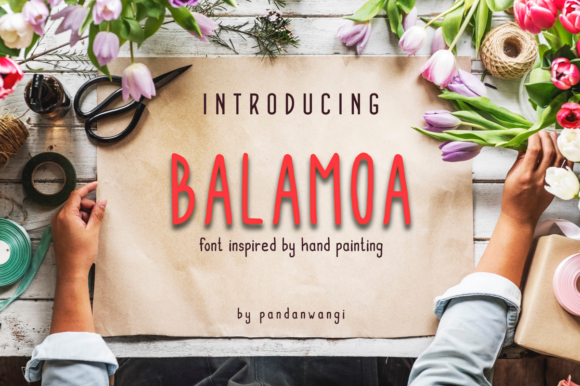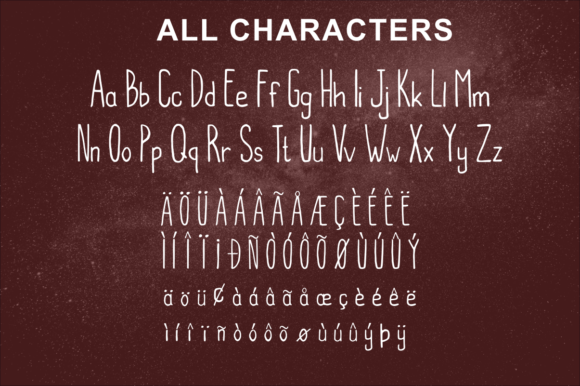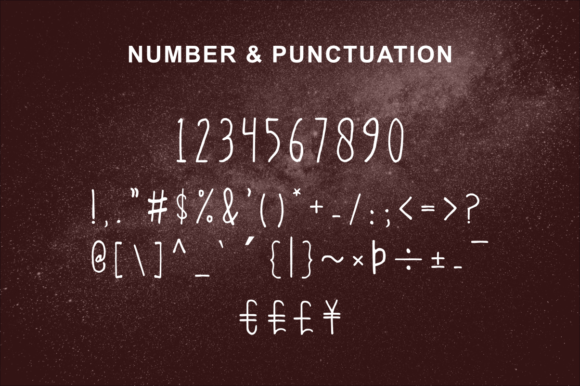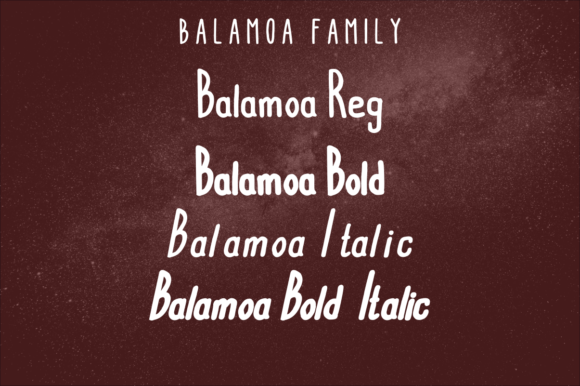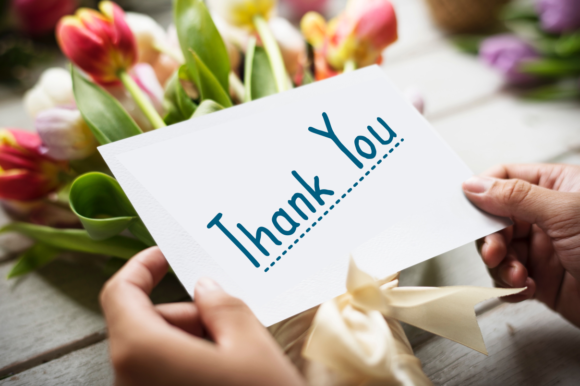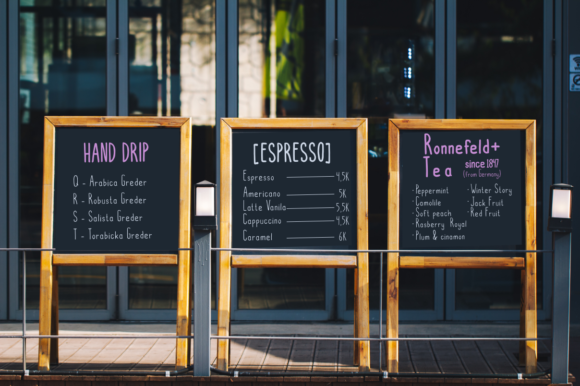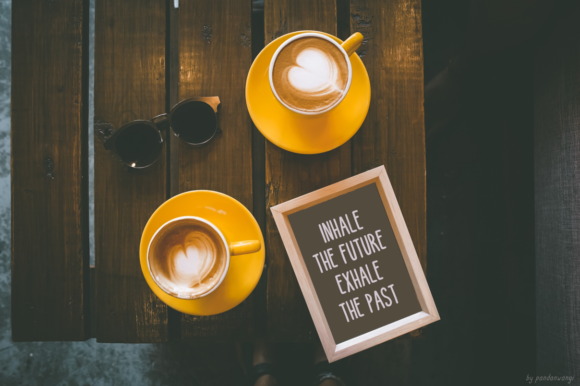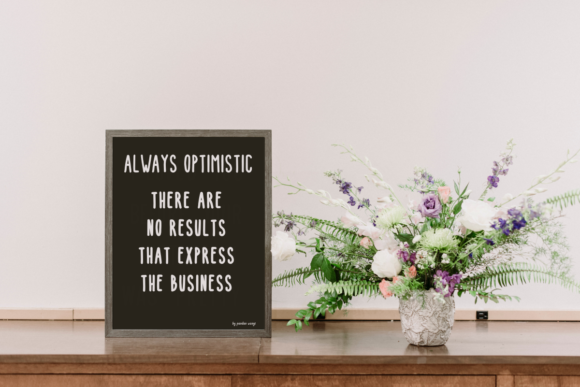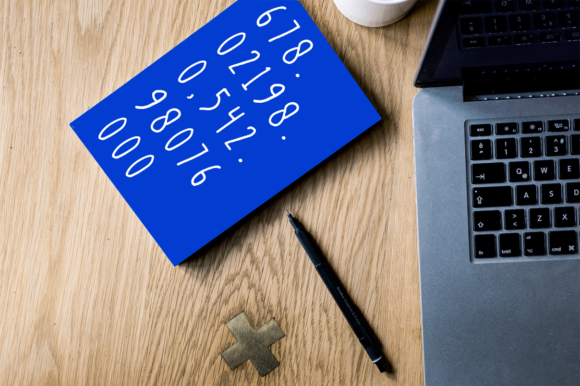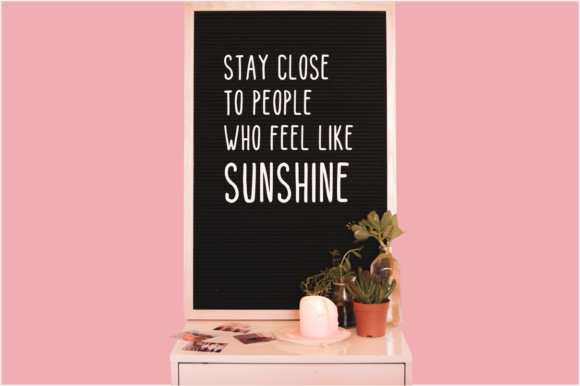
Balamoa Family Font
About Balamoa Family Font
The Balamoa is not just a font; it’s a lively and versatile hand-painted family that injects a sense of fun and creativity into your designs. With its four distinct styles designed to complement each other seamlessly, this font family opens up a world of possibilities for a variety of creative projects.
The four styles offered by Balamoa present a range of options for designers to play with, allowing for dynamic and harmonious combinations. Whether you’re working on branding, product designs, logos, book content, cafe or coffee shop menu lists, quotes, watermarks, or any other creative endeavor, Balamoa provides the flexibility to bring your vision to life.
The fun and hand-painted nature of Balamoa add a touch of authenticity and spontaneity to your designs. This family is not bound by strict conventions, allowing you to infuse a sense of playfulness into your branding or create eye-catching product designs that stand out.
Its adaptability makes it suitable for both digital and print applications, ensuring that your designs maintain their charm across various mediums. The versatility of Balamoa extends to its ability to convey different moods and styles, making it a valuable asset for designers seeking a font family that can cater to a wide range of creative projects.
In summary, The Balamoa hand-painted family is a dynamic and fun typographic solution for designers. With its four styles that harmonize perfectly, it provides a canvas for creativity across branding, product designs, logos, and more. Whether you’re aiming for a whimsical café menu or a striking watermark, Balamoa is designed to add a touch of playfulness and authenticity to your designs.